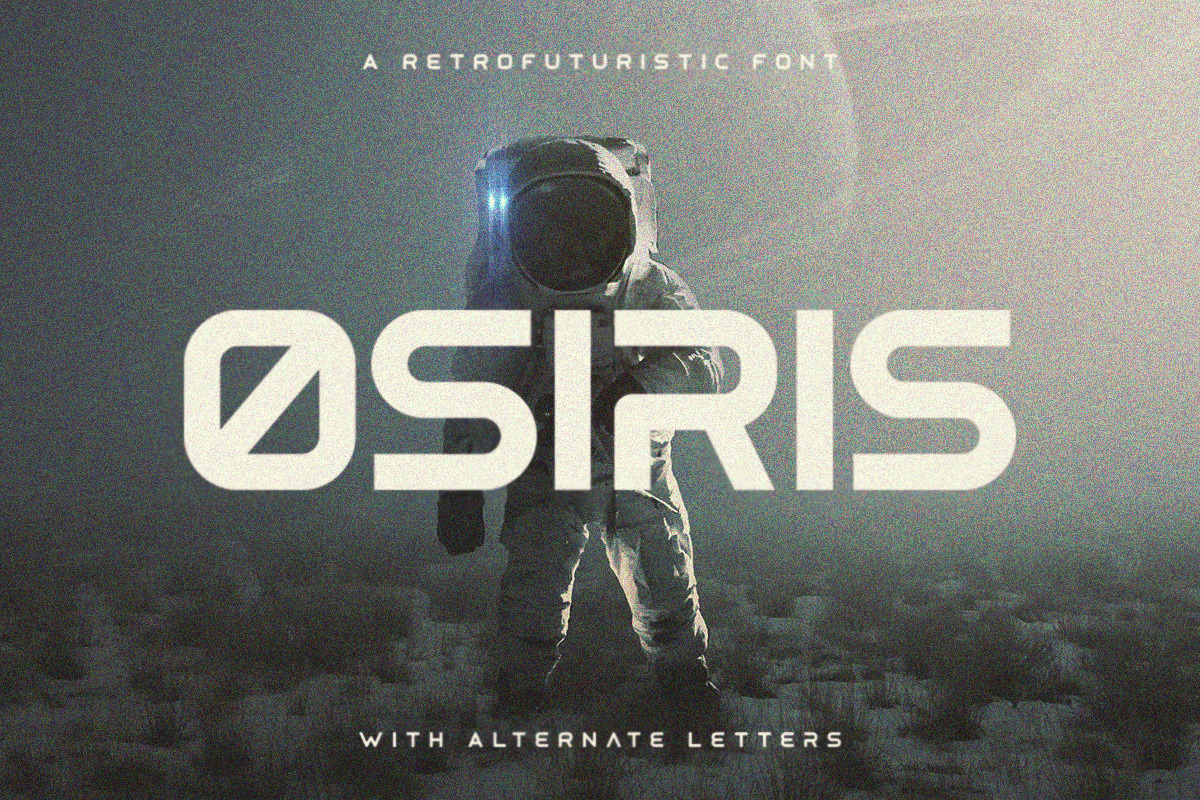
Osiris - Futuristic Font
Osiris is a retrofuturistic font with alternate letters. It includes uppercase multilingual letters, numbers and punctuation. The font features both sharp edges and rounded corners and was inspired a bit by the NASA font.